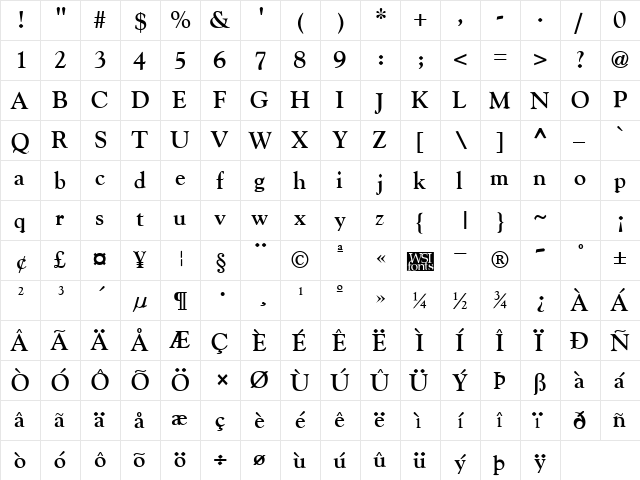
Gilde Bold
Design Context for Gilde Typeface
Gilde takes a measured approach to typography — its balanced proportions and neutral character make it a reliable workhorse for both digital and print work. Its bold stroke weight gives it real presence on the page.